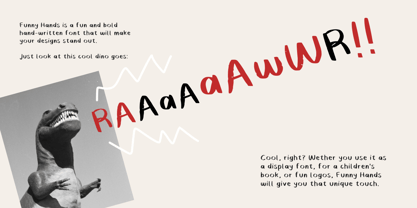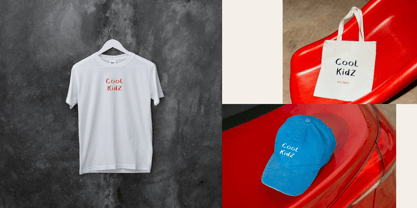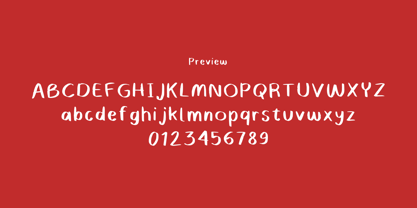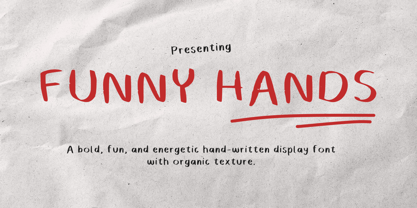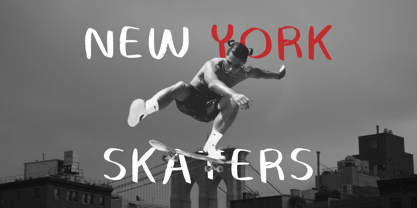
Funny Hands
by Calendulaae Design
Funny Hands is a fun, bold, and energetic handwritten display font that brings a cheerful, playful touch to any design. With its chunky letterforms and natural hand-drawn character, this font is perfect for children's projects, greeting cards, posters, packaging, social media graphics, classroom materials, and creative branding. Whenever you need a dose of fun and personality, Funny Hands is ready to make your words stand out.